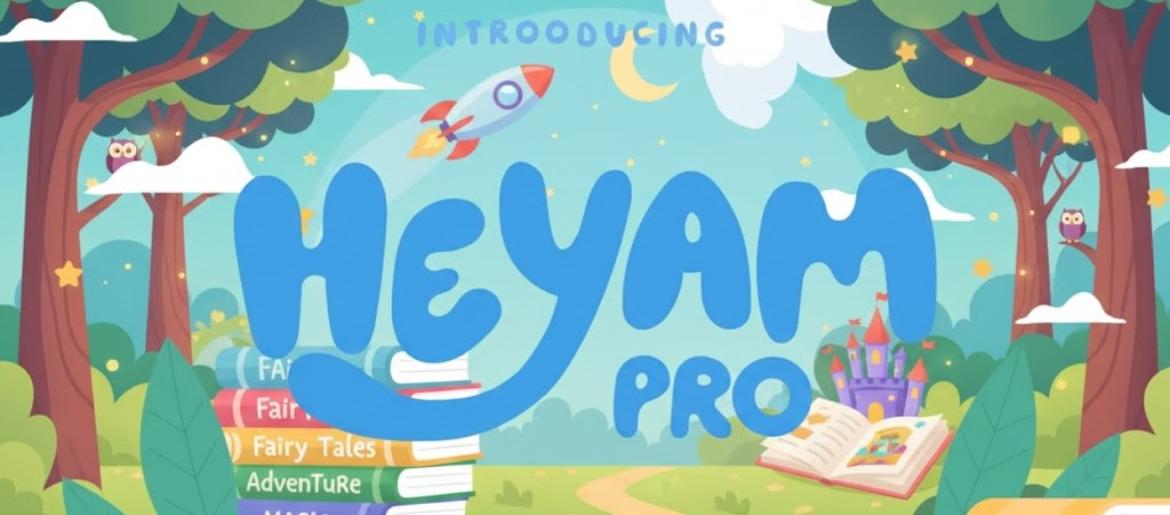
Heyam Font
Heyam Font is a playful cartoon-style typeface with bubbly, exaggerated letterforms and a fun, energetic personality. Its bold shapes and lively character make it perfect for kids’ designs, comics, posters, logos, packaging, and cheerful branding that needs vibrant, animated flair.
➤ Font Name: Heyam
➤ Designer: FG Studios
➤ Style: Cartoon